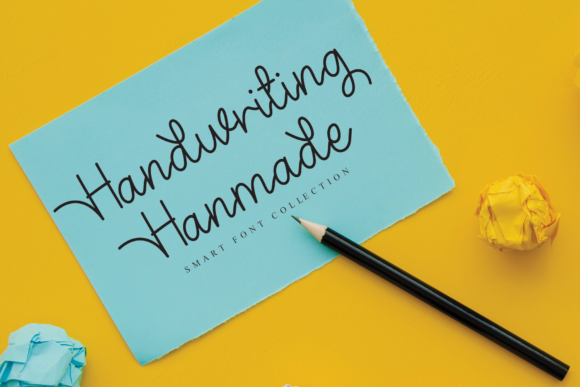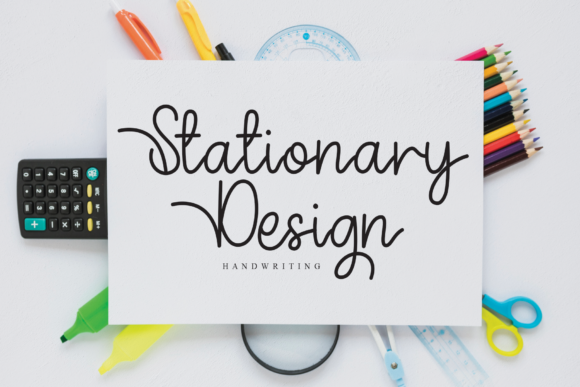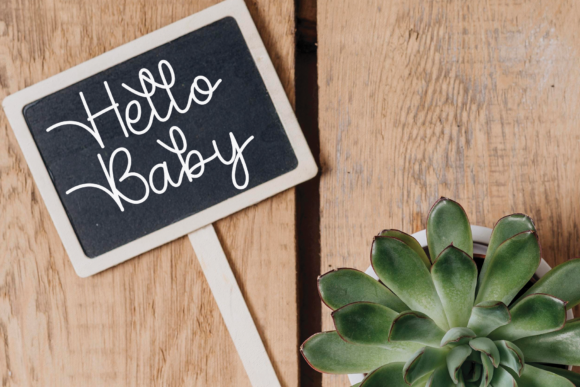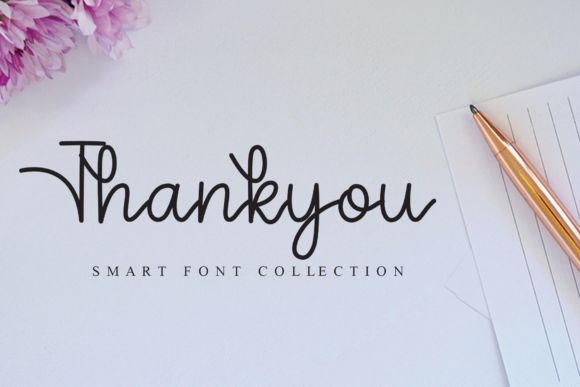
Baby Boby Font: The Ultimate Choice for Charming Designs
Are you looking for a font that can add a touch of cuteness and playfulness to your design projects? Look no further than the Baby Boby font! This adorable handwritten font is perfect for designers and crafters who want to create charming and eye-catching designs that capture the hearts of their audience.
What is Baby Boby Font?
Baby Boby is a cute and casual handwritten font that is designed to bring a smile to your face. Its playful and whimsical nature makes it an ideal choice for a wide range of design projects, from greeting cards and invitations to posters and social media graphics.
Key Features of Baby Boby Font
- Cute and Playful: Baby Boby font is designed to be adorable and fun, making it perfect for designs that require a touch of whimsy.
- Handwritten: The font has a beautiful handwritten feel that gives it a personal and organic touch.
- Casual: Baby Boby font is perfect for casual designs that require a relaxed and friendly tone.
- Charming: The font’s charming appearance makes it ideal for designs that require a touch of elegance and sophistication.
Why Use Baby Boby Font?
There are many reasons why designers and crafters love using the Baby Boby font. Here are a few:
- Uniqueness: Baby Boby font is a unique and distinctive font that can help your designs stand out from the crowd.
- Versatility: The font can be used for a wide range of design projects, from digital designs to print materials.
- Easy to Read: Baby Boby font is clear and easy to read, making it perfect for designs that require a lot of text.
- Customizable: The font can be easily customized to fit your design needs, from adjusting the size and color to adding effects and textures.
Design Ideas Using Baby Boby Font
Here are some design ideas that you can use Baby Boby font for:
- Greeting Cards: Use Baby Boby font to create adorable greeting cards for special occasions like birthdays, weddings, and holidays.
- Invitations: Create eye-catching invitations for parties, events, and gatherings using Baby Boby font.
- Posters: Use Baby Boby font to create fun and playful posters for movies, events, and products.
- Social Media Graphics: Create engaging social media graphics using Baby Boby font to promote your brand or product.
- Crafting Projects: Use Baby Boby font to add a personal touch to your crafting projects, such as scrapbooking, journaling, and card making.
Tips for Using Baby Boby Font
Here are some tips for using Baby Boby font effectively:
- Pair with Other Fonts: Pair Baby Boby font with other fonts to create a unique and interesting contrast.
- Adjust Font Size: Adjust the font size to create visual hierarchy and emphasize important information.
- Use Colors: Use colors that match your brand or design theme to create a cohesive look.
- Add Effects: Add effects and textures to Baby Boby font to give it a more playful and whimsical feel.
In conclusion, Baby Boby font is a charming and versatile font that can add a touch of cuteness and playfulness to your design projects. Its handwritten feel, casual nature, and charming appearance make it perfect for a wide range of designs, from greeting cards and invitations to posters and social media graphics. With its uniqueness, versatility, and ease of use, Baby Boby font is a great choice for designers and crafters who want to create eye-catching and charming designs.